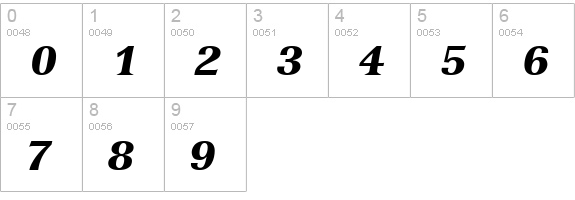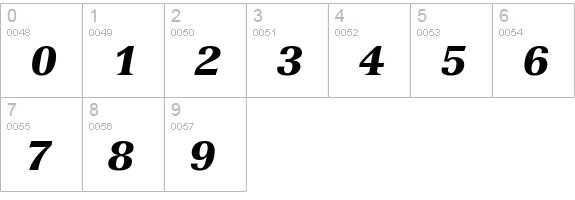
Nuance Black SSi Black Italic is a maximum-weight, dramatic, italic variant in the Nuance typeface family \xE2\x80\x94 well suited to maximum-impact headlines, posters, and packaging.
Introducing Nuance Black SSi Black Italic font - a sophisticated and elegant typeface that exudes a sense of modernity and style. This sleek and stylish font features a sleek black color with a bold italic design, making it perfect for adding a touch of sophistication to any project. With its clean lines and contemporary aesthetic, Nuance Black SSi Black Italic font is sure to make a statement in any design application. Whether you're creating a logo, website, or print materials, this versatile font is the perfect choice for adding a touch of elegance and professionalism. Best of all, Nuance Black SSi Black Italic font is available for free download at FontsMarket.com. So why wait? Add this stunning font to your collection today and elevate your designs to the next level.